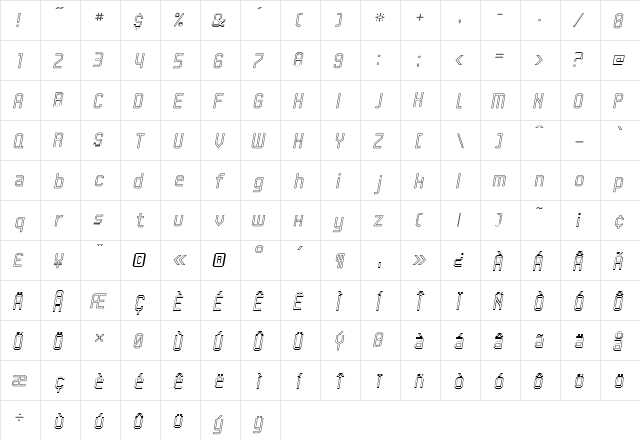
UNDA Regular Font Preview
UNDA Regular
Design Context for UNDA Typeface
UNDA takes a measured approach to typography — its balanced proportions and neutral character make it a reliable workhorse for both digital and print work.